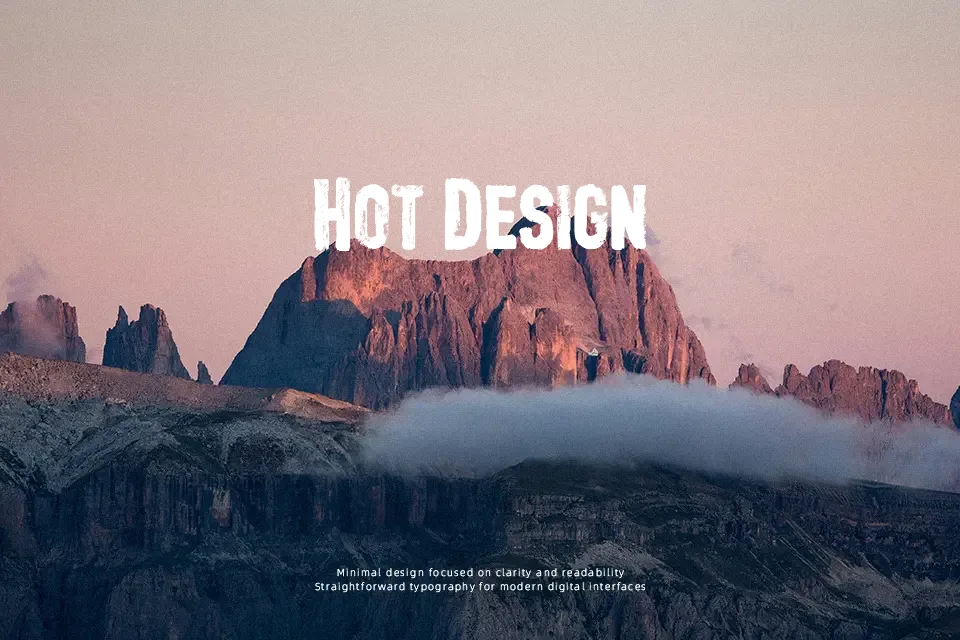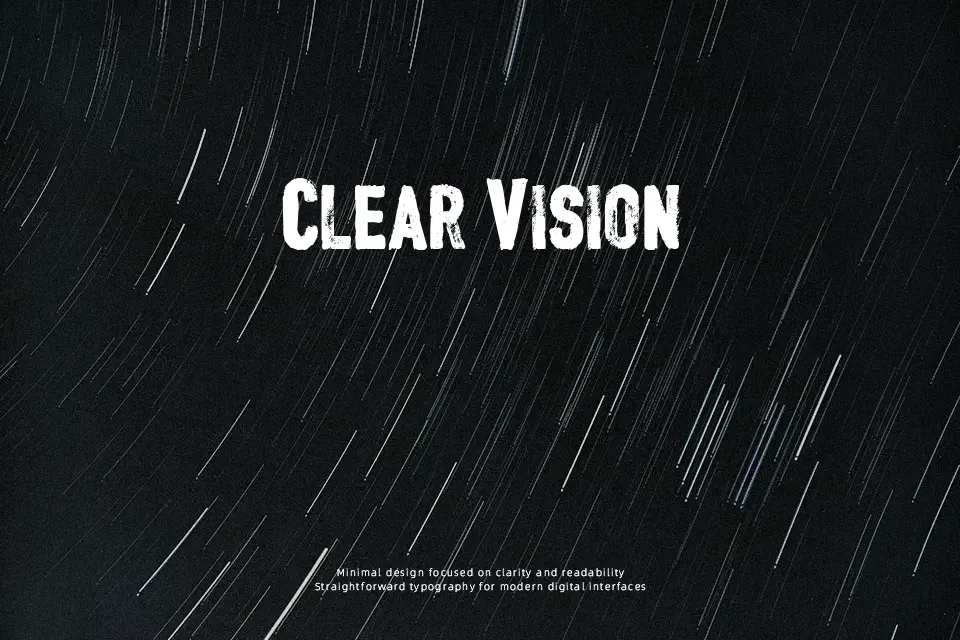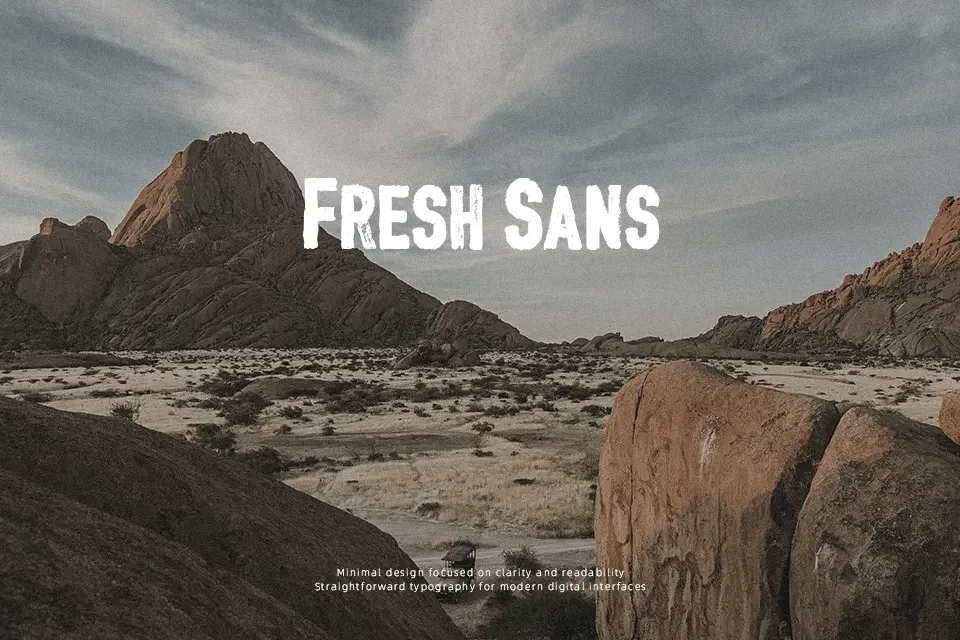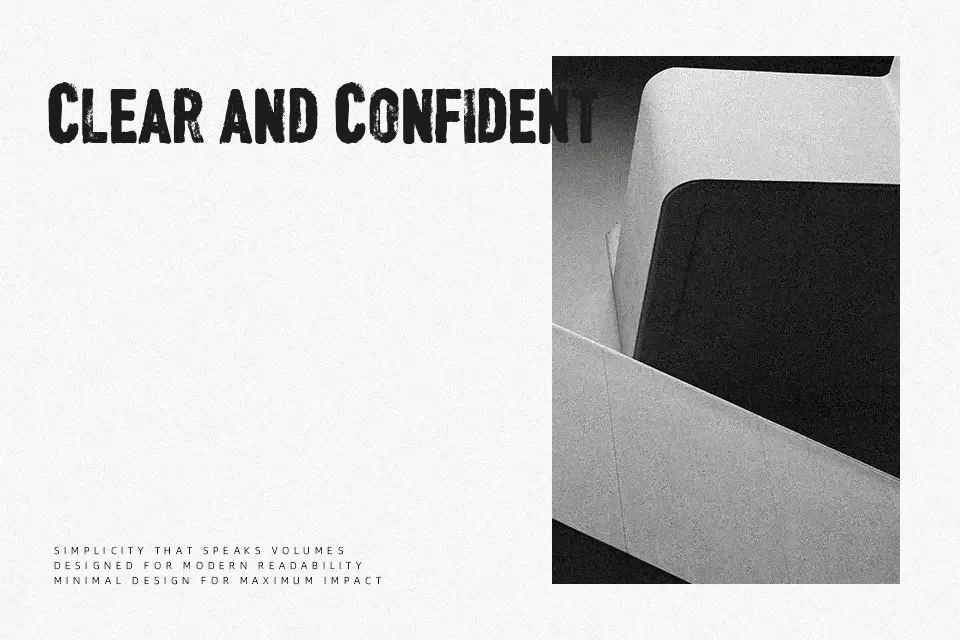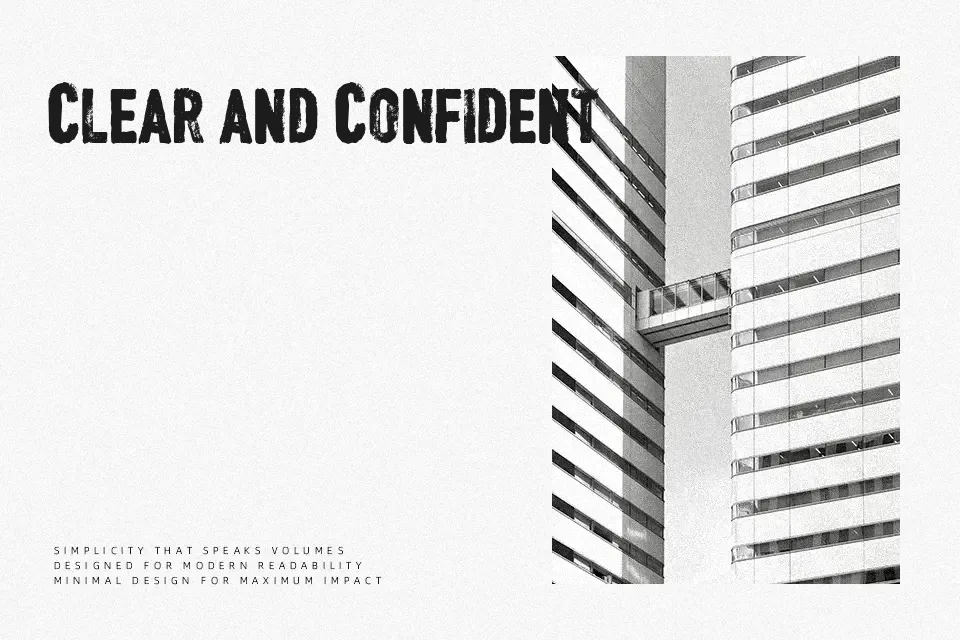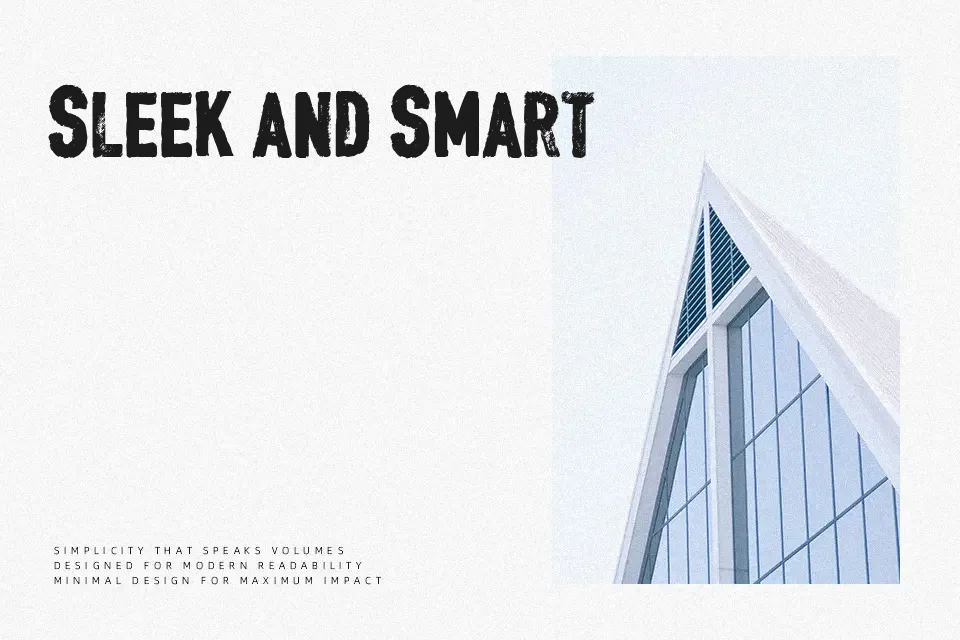
CF Jacques Parizeau Font
Designed by Cloutierfontes
CF Jacques Parizeau Font features bold, compact letterforms marked by jagged erosion and irregular distressed cutouts across every stroke. The heavyweight contours maintain uniform vertical stems with minimal contrast, while tight horizontal spacing produces dense, forceful typographic blocks. Proportions lean slightly condensed, giving individual glyphs an imposing presence in short display headlines, event flyers, and video game title screens. In practical application, the coarse textural damage delivers excellent visual weight at scale but rapidly compromises legibility when scaled down. Dense letter arrangements become difficult to decipher in extended paragraphs, making the design unsuitable for standard body copy or small interface text.
Best For: grunge music posters, horror movie titles, video game branding, distressed apparel graphics
Not Ideal For: long editorial paragraphs, small mobile UI labels, corporate documentation, continuous book reading
Perfect for film, gaming, and headline, with a bold and decorative style.